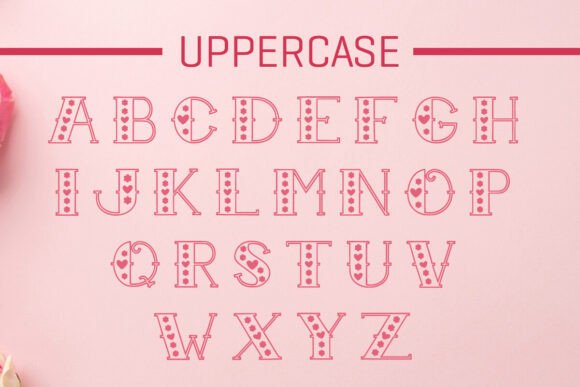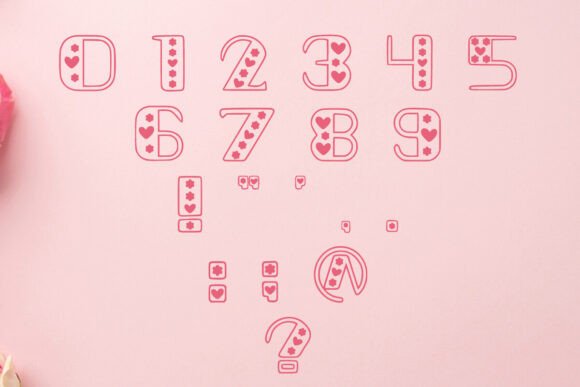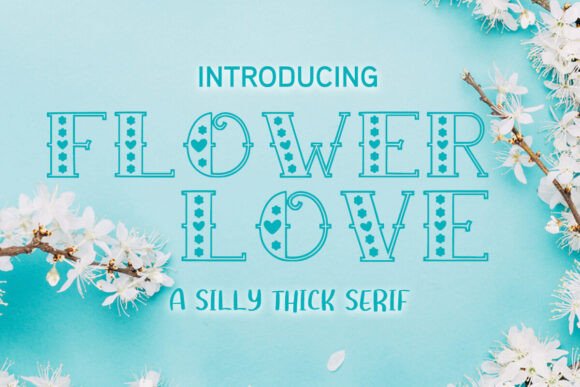
The Power of Typography: How Flower Love Font Can Elevate Your Designs
I’ll never forget the time I was working on a wedding invitation project, struggling to find the perfect font that would capture the essence of love and romance. My client wanted something elegant, yet playful, and I was on a mission to deliver. That’s when I stumbled upon Flower Love, a captivating display font that blends delicate floral elements with playful heart motifs. It was love at first sight! 💕
What Makes Flower Love So Special?
Flower Love is more than just a font – it’s a design statement. Its elegant curves and charming details make it ideal for a wide range of design projects, from wedding invitations and greeting cards to branding materials and social media graphics. Here are some key features that make Flower Love a standout:
- ✅ Elegant and Romantic: Perfect for love-themed designs.
- ✅ Versatile: Suitable for various design styles, from vintage to modern.
- ✅ High-Quality: Crisp, clear glyphs for professional-looking designs.
I’ve had the pleasure of working with Flower Love on several projects, and here’s my honest review:
- ✨ The font’s unique blend of floral and heart elements adds a touch of whimsy to any design.
- ✨ The elegant curves and charming details make it perfect for romantic designs.
- ✅ The font is highly versatile and can be used for various design styles.
While Flower Love is an amazing font, there are a few things to keep in mind:
- ⚠️ The font may not be suitable for very long texts, as it’s designed primarily for display purposes.
- 🤔 Some users may find the font’s playful elements too whimsical for certain design projects.
- Experiment with the font’s OpenType features, such as glyphs and stylistic alternates, to add more personality to your design.
The Designer Inspiration Behind Flower Love
Flower Love was designed with love and care by a talented typographer who’s passionate about creating beautiful, unique fonts. The designer’s inspiration came from the whimsical world of flowers and hearts, combined with a desire to create a font that’s both elegant and playful.
| Is Flower Love suitable for body text? | Flower Love is designed primarily for display purposes and may not be suitable for long body text. |